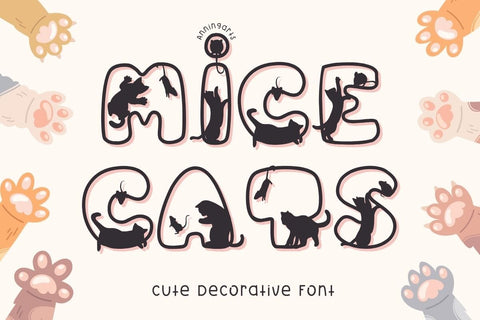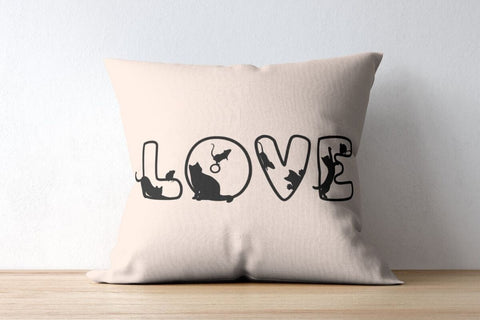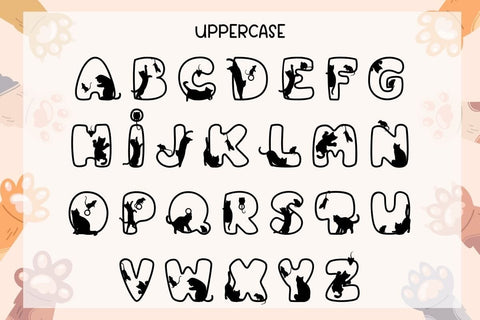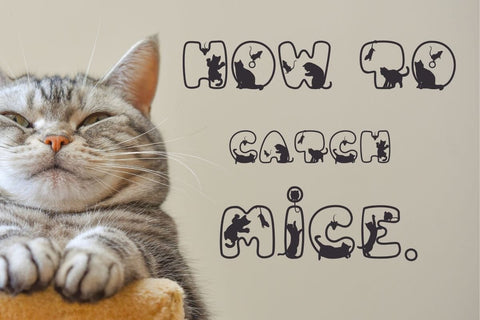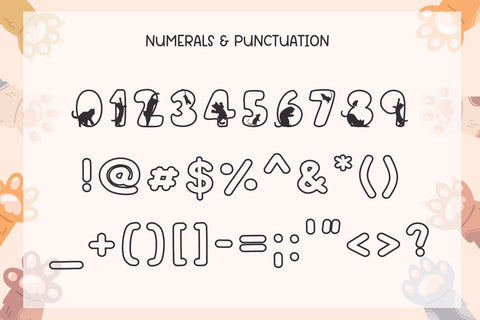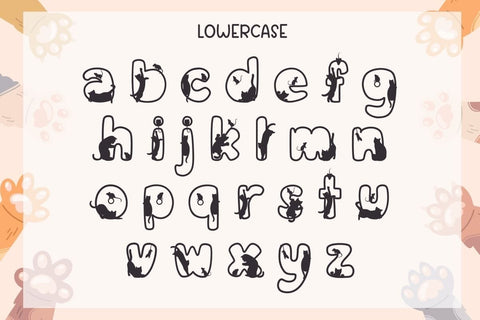
Mice Cats - Outline Decorative Font
Mice Cats Font is a playful decorative typeface featuring adorable cats and mice inside each letterform. Perfect for pet-themed designs, children’s projects, posters, cards, t-shirts, tote bags, stickers, and DIY crafts. The font includes uppercase, lowercase, numbers, and punctuation—ideal for creating fun and unique designs with a whimsical touch.